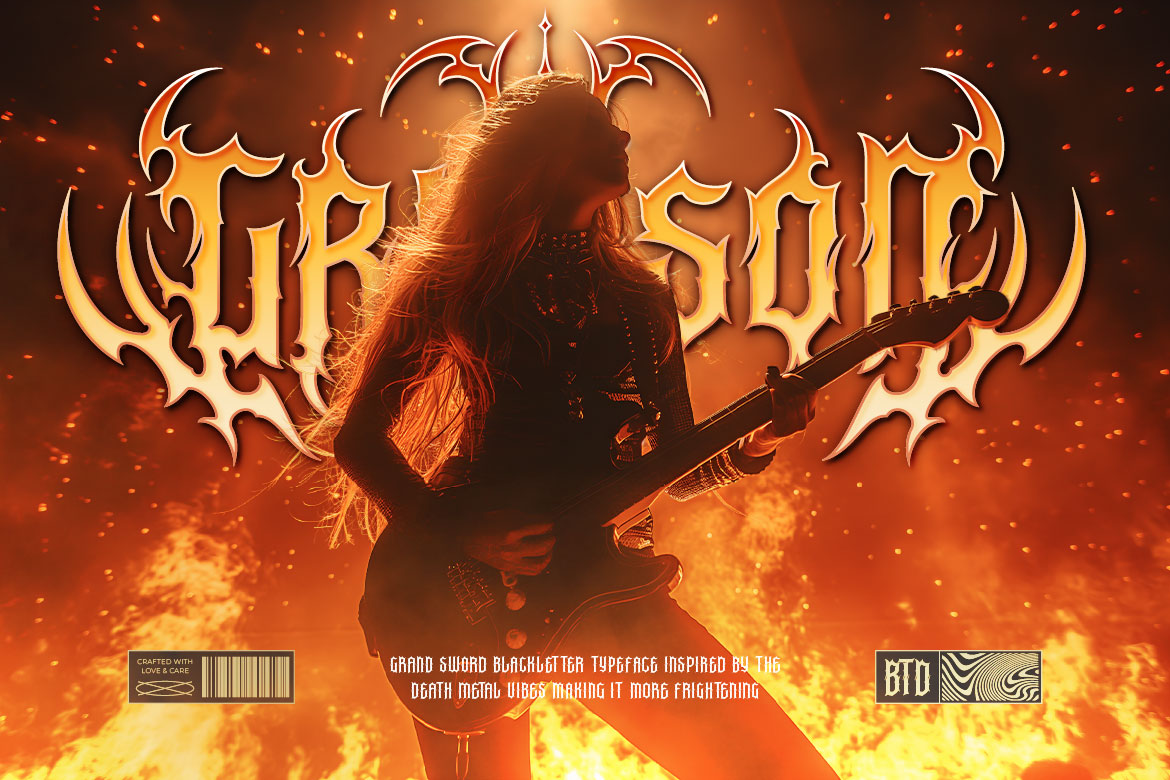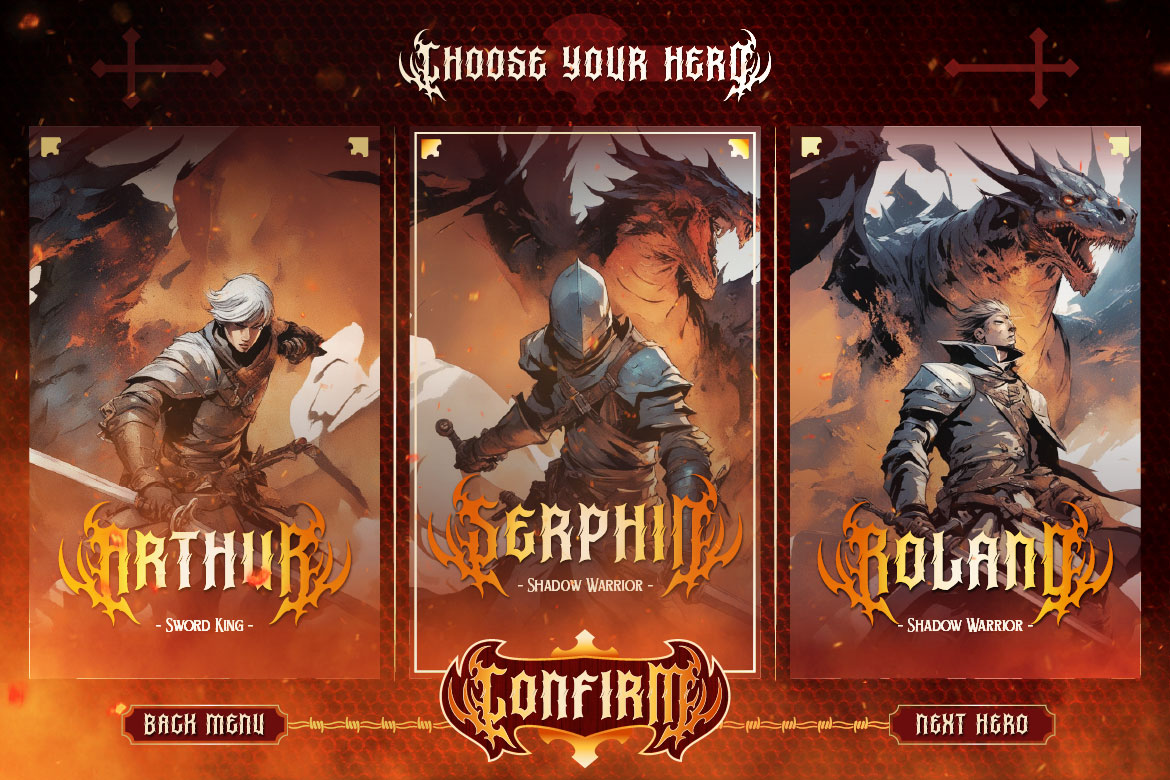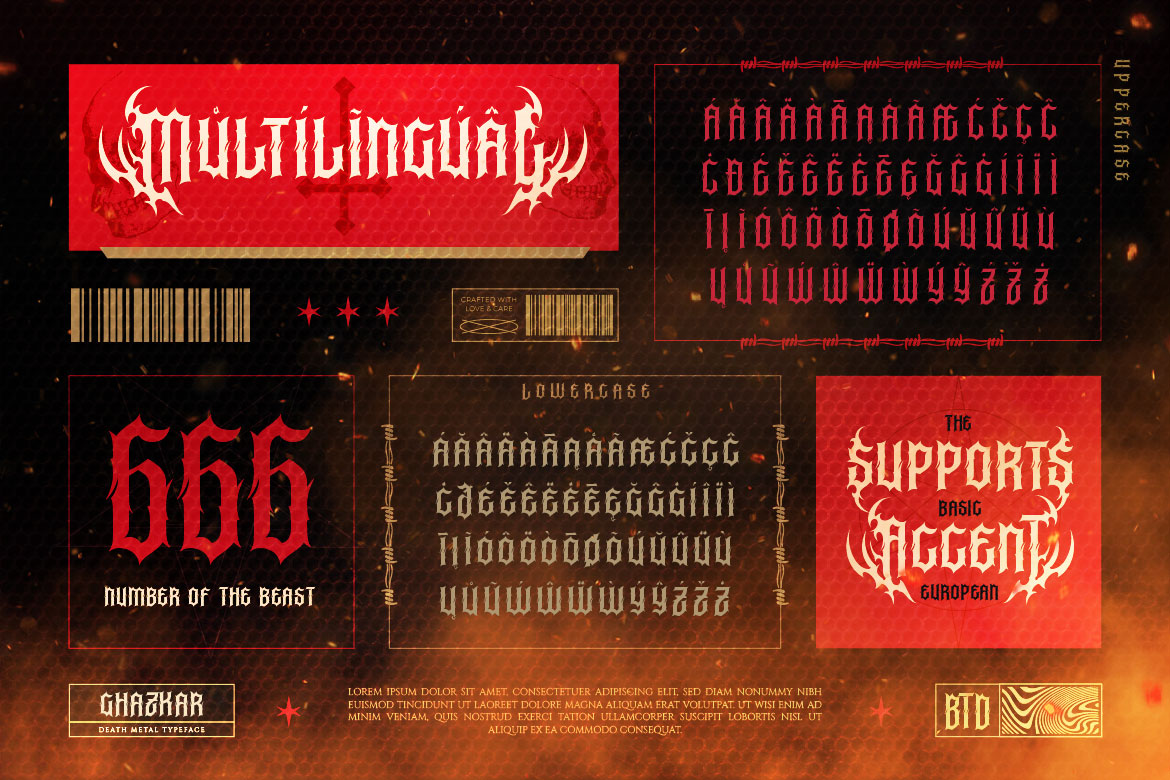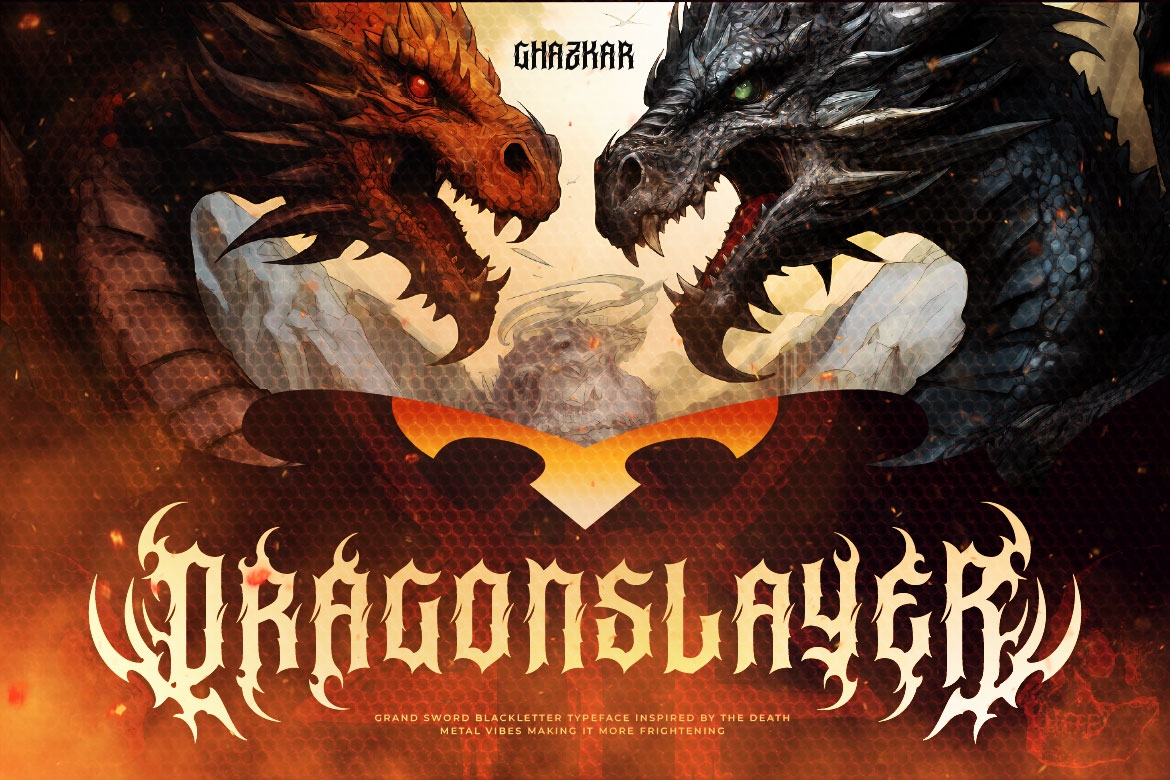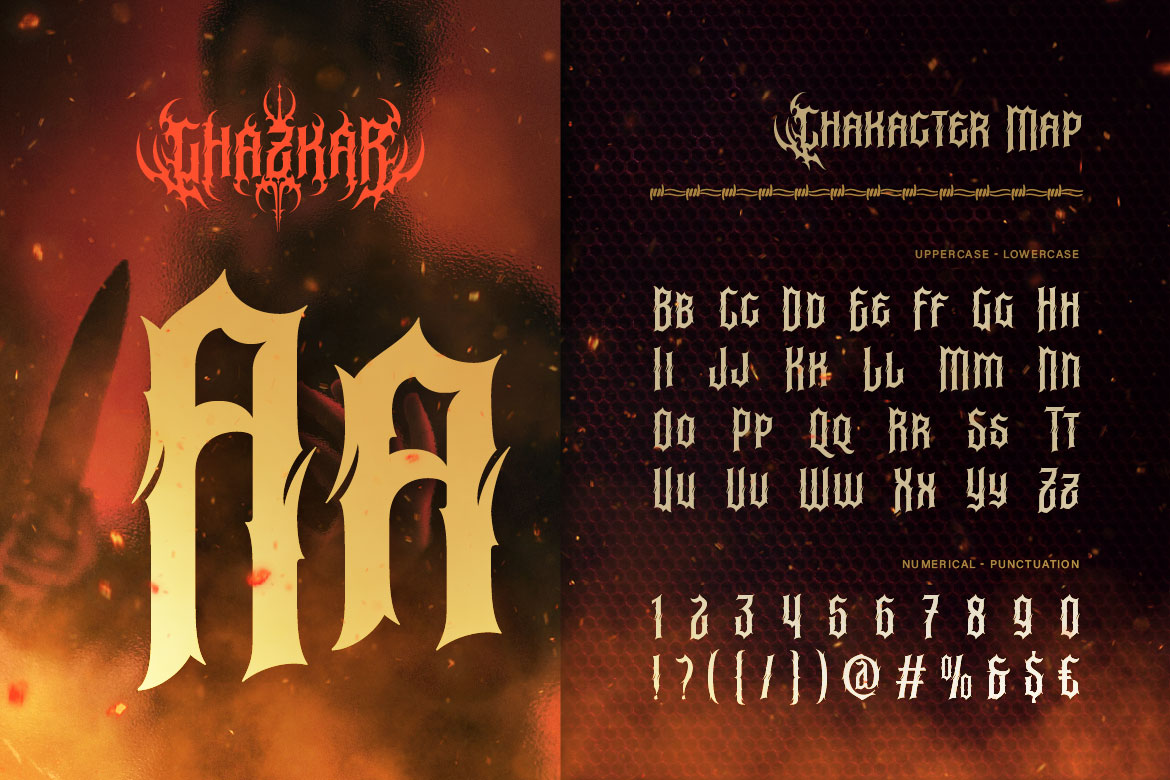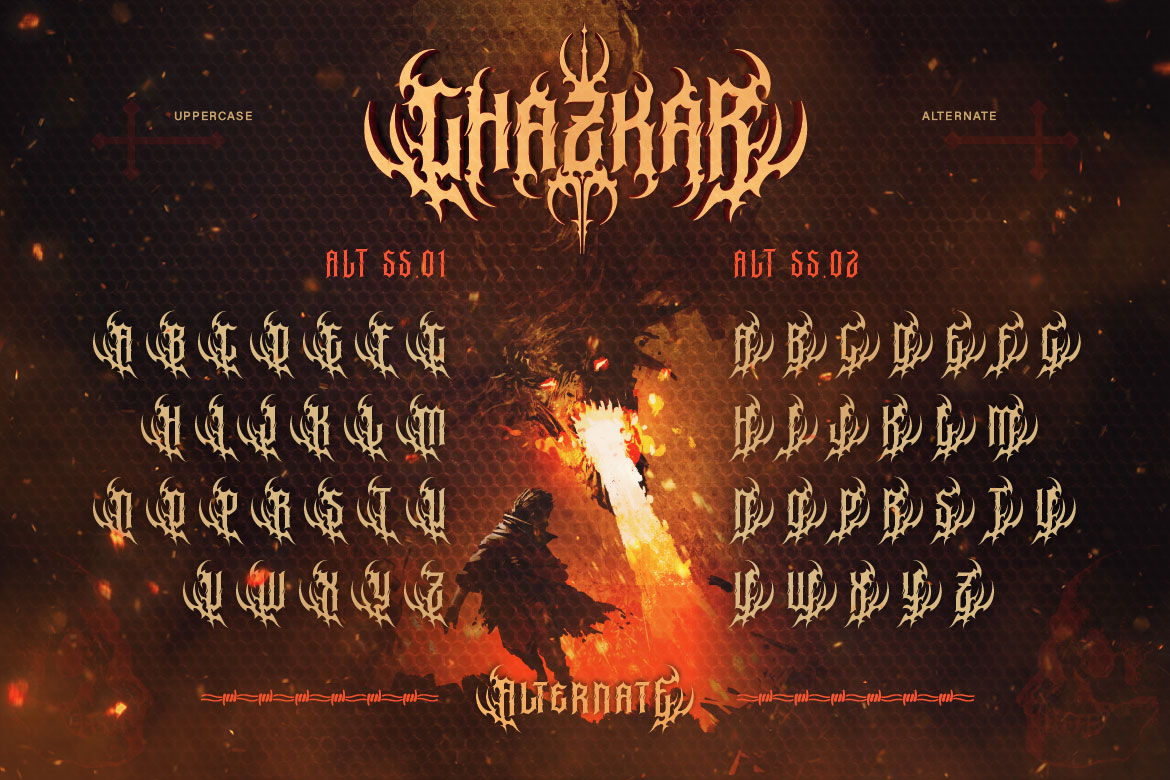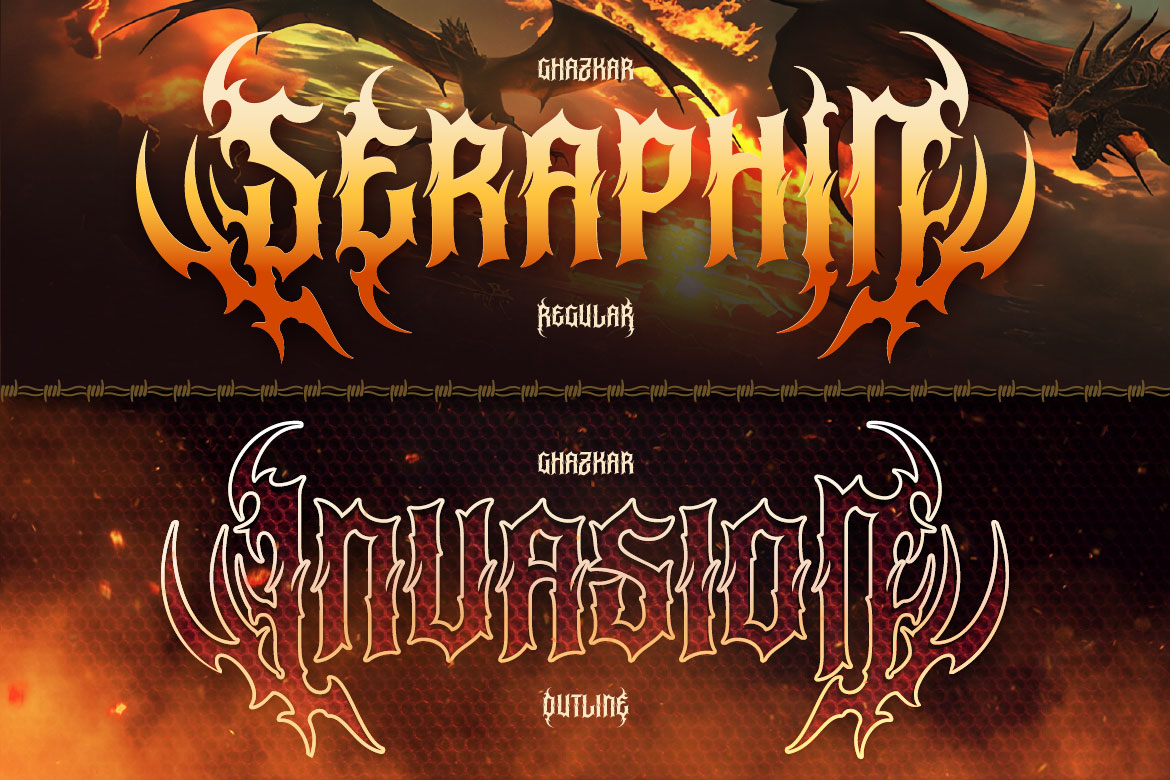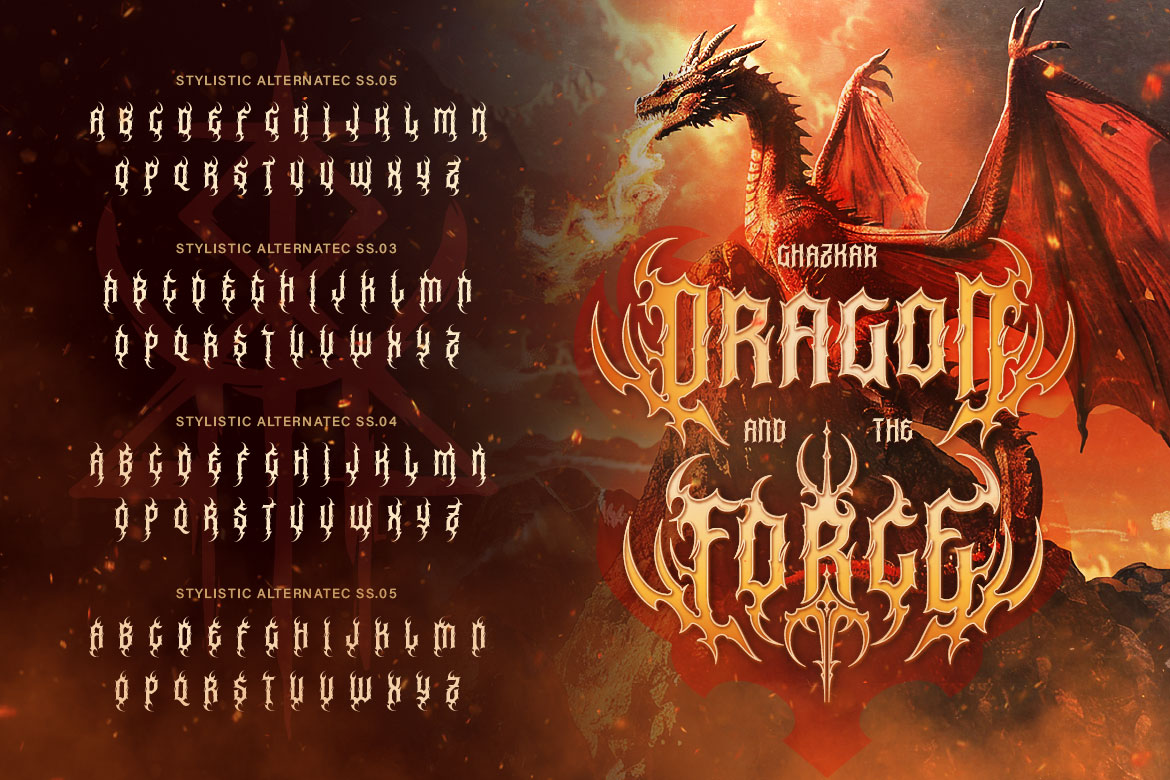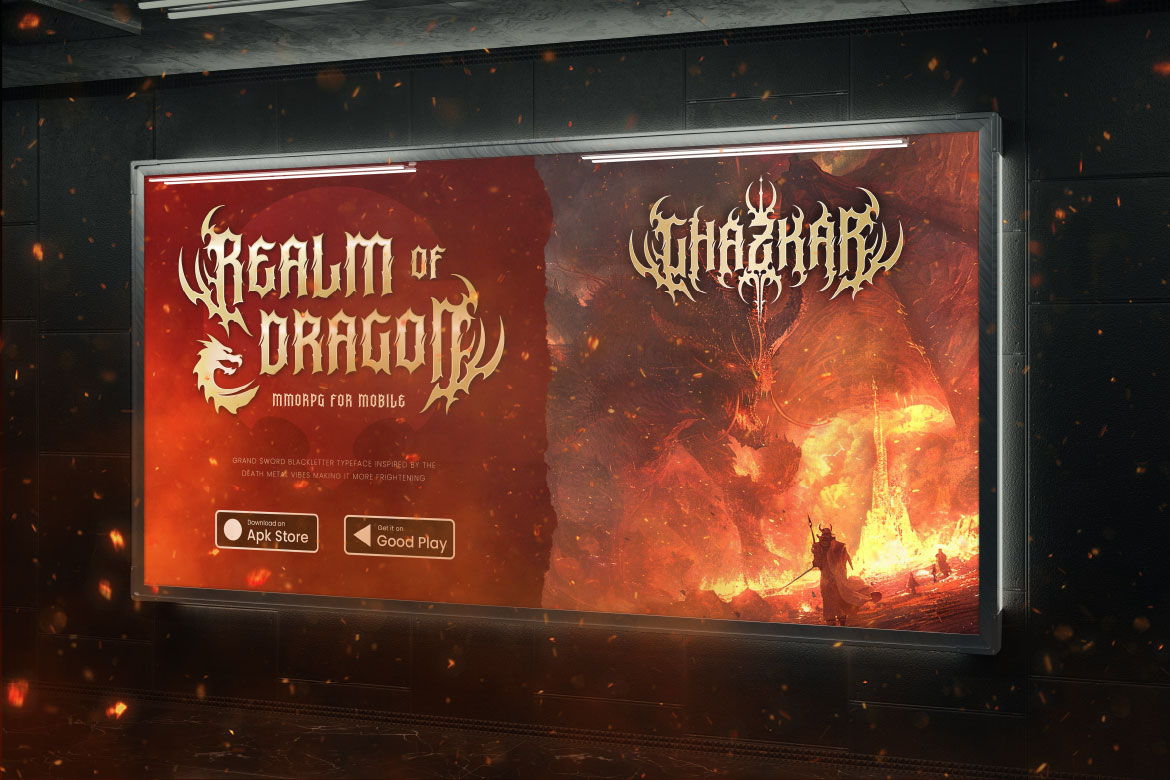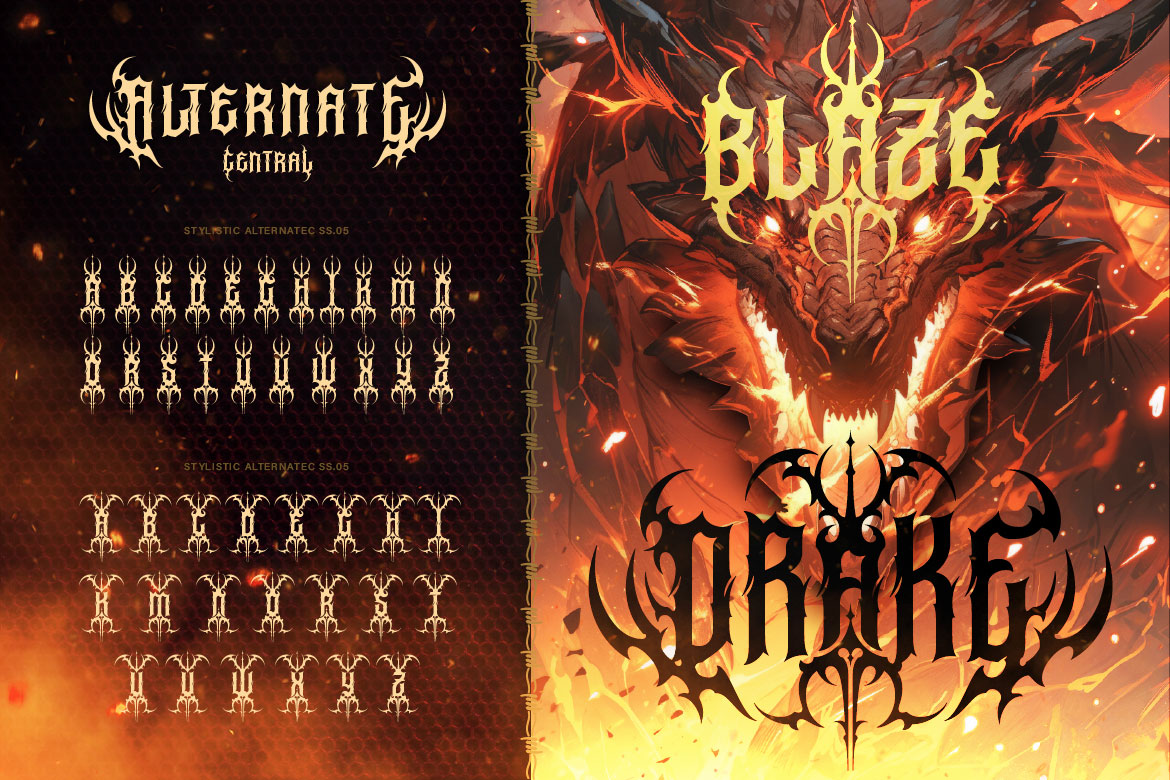
Ghazkar
Proudly present, Ghazkar , a sharp and dominant tribal blackletter typeface.
This font features unique character details through extra elements like spikes, thorns, and vine-like motifs that blend seamlessly with its letter structure.
Ghazkar comes in two styles: Regular and Outline, equipped with a wide range of ligatures and alternates to let your wild creativity flow freely.
With its bold gothic style, this font is a solid choice for dark fantasy themes, heavy metal designs, tattoo artwork, gothic horror, or any branding that demands power and visual dominance.
Feel the visual power of Ghazkar and let your design speak with untamed energy.